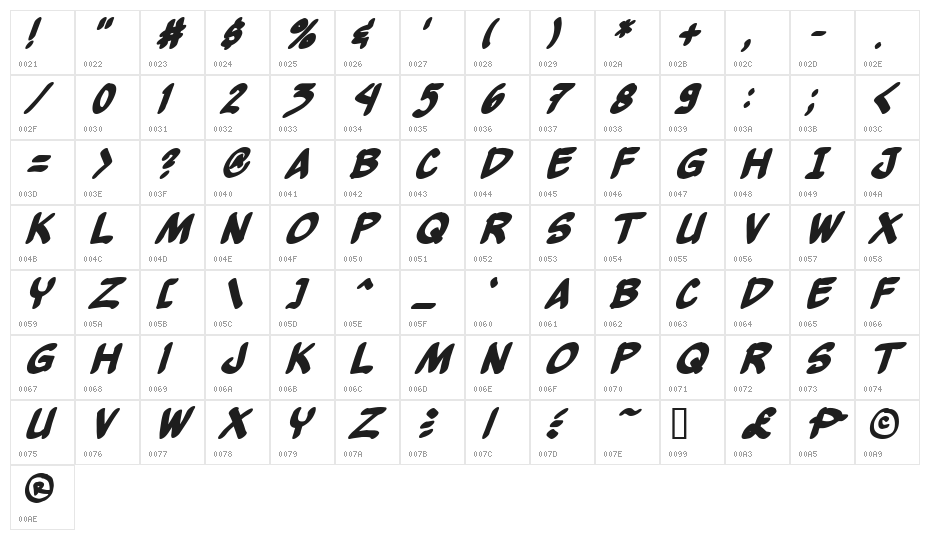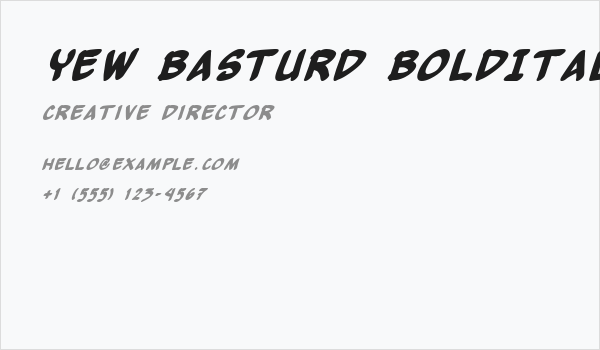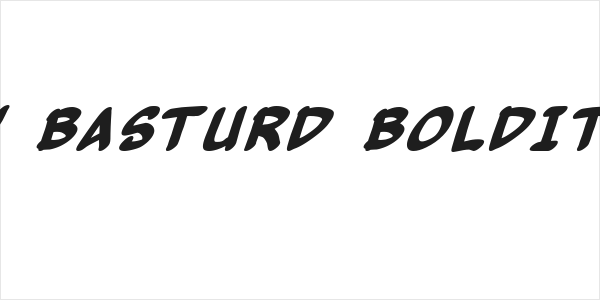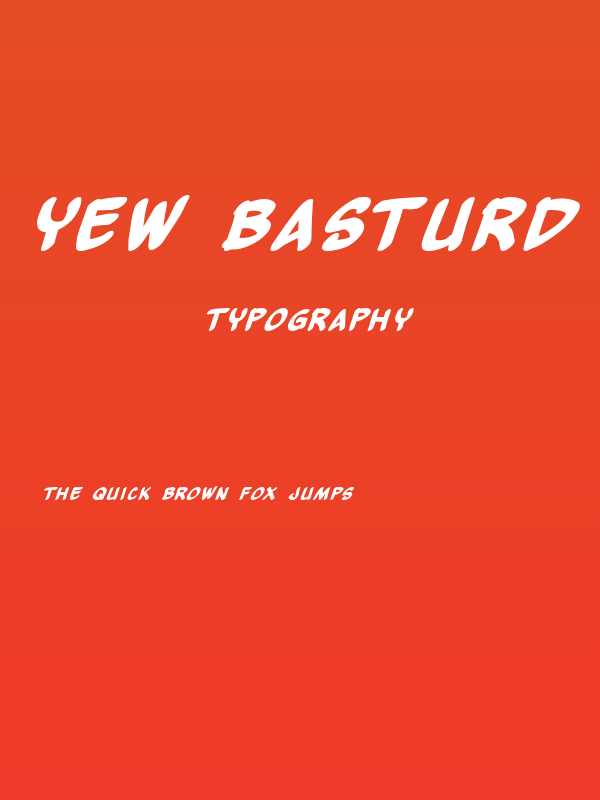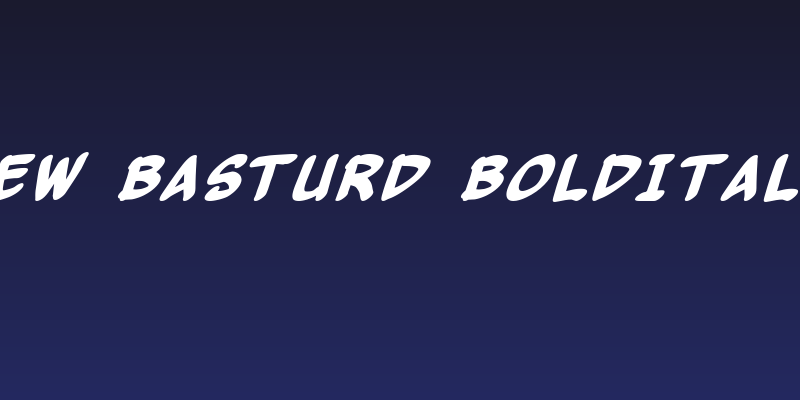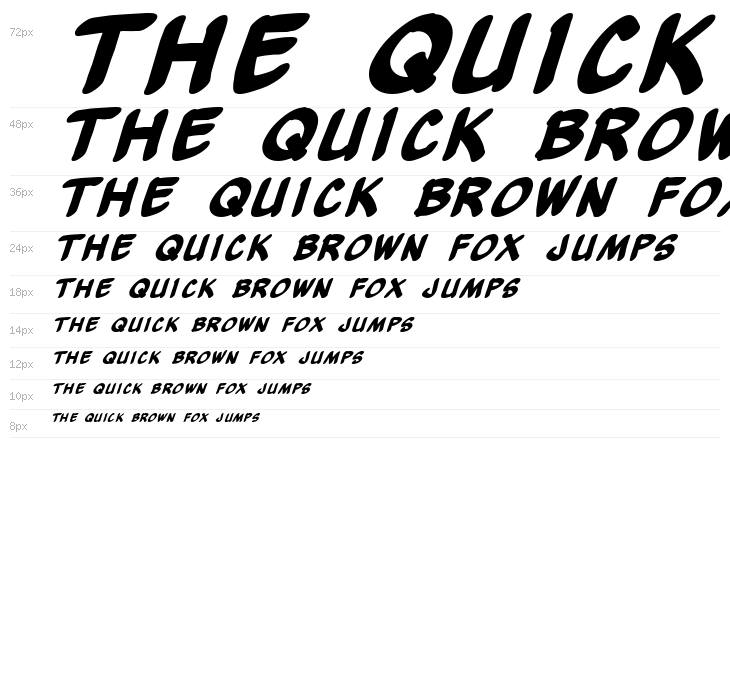
Yew Basturd BoldItalic Font
Yew Basturd BoldItalic Description
This font features a bold and dynamic style with a strong italic slant, giving it a sense of movement and energy. The characters are thick and robust, with a slightly condensed appearance that enhances its boldness. The strokes are smooth and fluid, contributing to a cohesive and unified look. The uppercase and lowercase letters maintain a consistent style, while the numerals and special characters integrate seamlessly into the overall design. This font's bold and italic nature makes it stand out, making it suitable for attention-grabbing headlines and impactful designs.